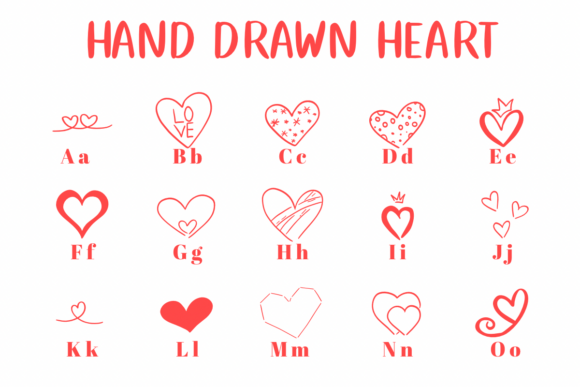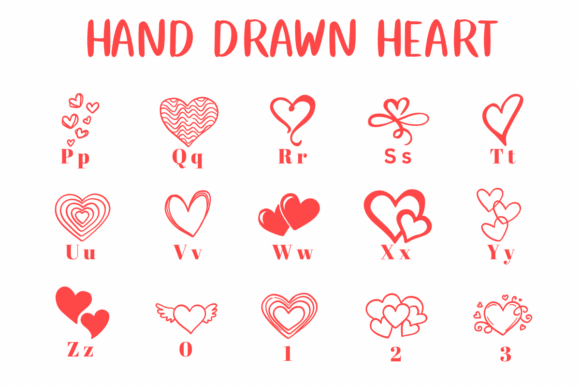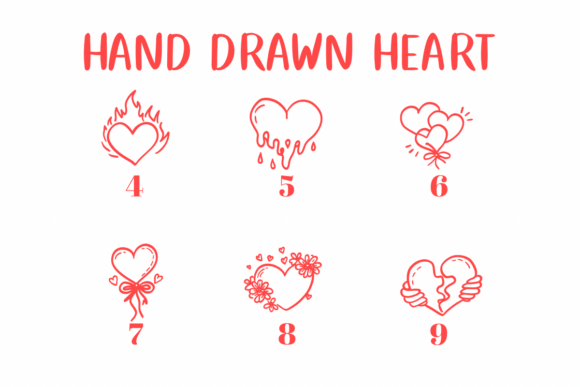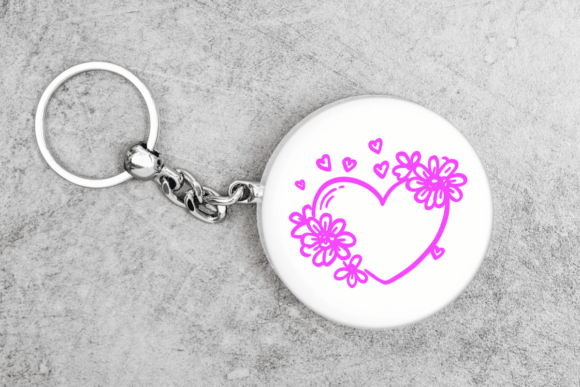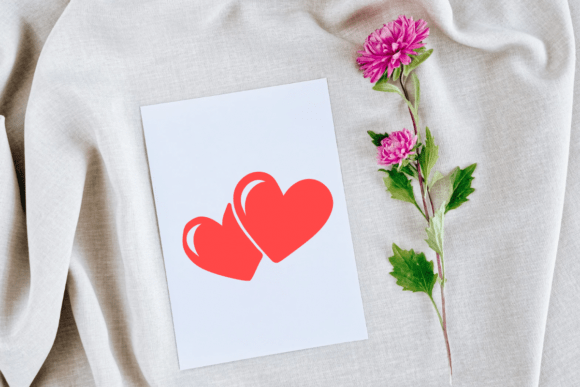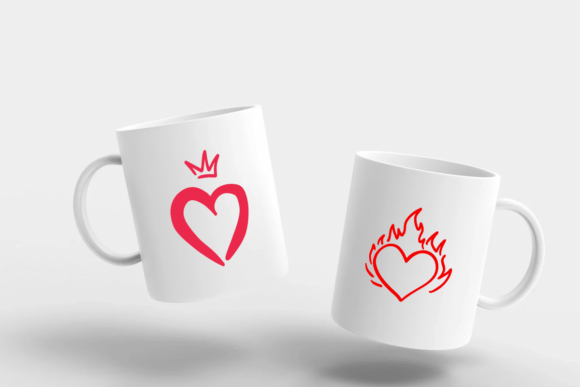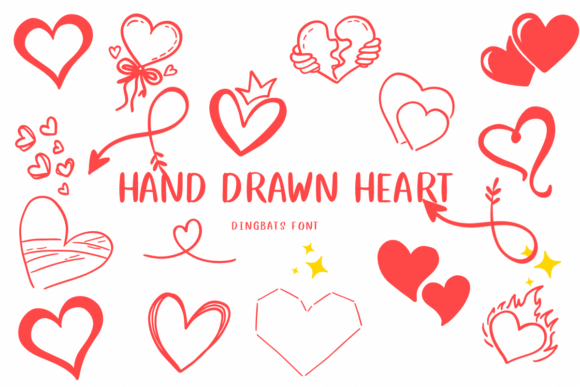
The Hand-Drawn Heart Font: Your Ultimate Toolkit for Adding Love to Any Project
Are you looking for a creative way to add a dash of love to your designs, crafts, or digital projects? Look no further than the Hand-Drawn Heart dingbats font! This versatile typeface is a collection of various heart illustrations, ranging from broken hearts and hearts with arrows to flaming hearts and sparkling icons. With the Hand-Drawn Heart font, you can easily add a touch of romance and whimsy to any project.
What is a Dingbat Font?
For those who may be unfamiliar, a dingbat font is a type of font that features graphical symbols, rather than traditional letters and numbers. Dingbats are often used to add visual interest and personality to designs, and can be used in a variety of creative ways. The Hand-Drawn Heart font takes this concept to the next level, offering a wide range of heart-themed illustrations that can be used to decorate and embellish your projects.
The Benefits of Using the Hand-Drawn Heart Font
So why choose the Hand-Drawn Heart font over standard clipart or other design elements? For one, this font allows you to type icons as easily as letters, ensuring perfect scaling and color control. This makes it easy to use the hearts in a variety of contexts, from digital designs to print projects. Additionally, the Hand-Drawn Heart font offers a level of consistency and cohesion that can be hard to achieve with clipart or other graphical elements.
Creative Usage & Decoration Ideas
So, how can you use the Hand-Drawn Heart font in your projects? Here are a few ideas to get you started:
Custom Borders
Type a string of the same heart icon to create a seamless border for an invitation, Valentine’s Day card, or other project. This is a great way to add a touch of personality and whimsy to your designs.
Bullet Points
Use different heart styles for list items in a digital planner, to-do list, or other project. This is a great way to add visual interest and make your lists more engaging.
Logo Accents
Add a single flaming heart or sparkle heart above a wordmark to give it instant character. This is a great way to add a touch of personality to your logos and branding.
Tips for Getting the Most Out of the Hand-Drawn Heart Font
Here are a few tips for getting the most out of the Hand-Drawn Heart font:
- Experiment with different heart styles and combinations to find the look that works best for your project.
- Use the font in combination with other design elements, such as photos, illustrations, or textures, to add depth and interest.
- Don’t be afraid to get creative and try new things! The Hand-Drawn Heart font is a versatile tool that can be used in a wide range of contexts.
Whether you’re a professional designer or a crafter looking for a creative way to add personality to your projects, the Hand-Drawn Heart font is the perfect tool for the job. With its wide range of heart illustrations and ease of use, this font is sure to become a favorite in your design toolkit.
Make Your Project Stand Out
In a world where designs can often feel generic and impersonal, the Hand-Drawn Heart font offers a way to add a touch of love and personality to your projects. Whether you’re creating a romantic Valentine’s Day card or a fun and playful digital design, this font is sure to help your project stand out from the crowd.